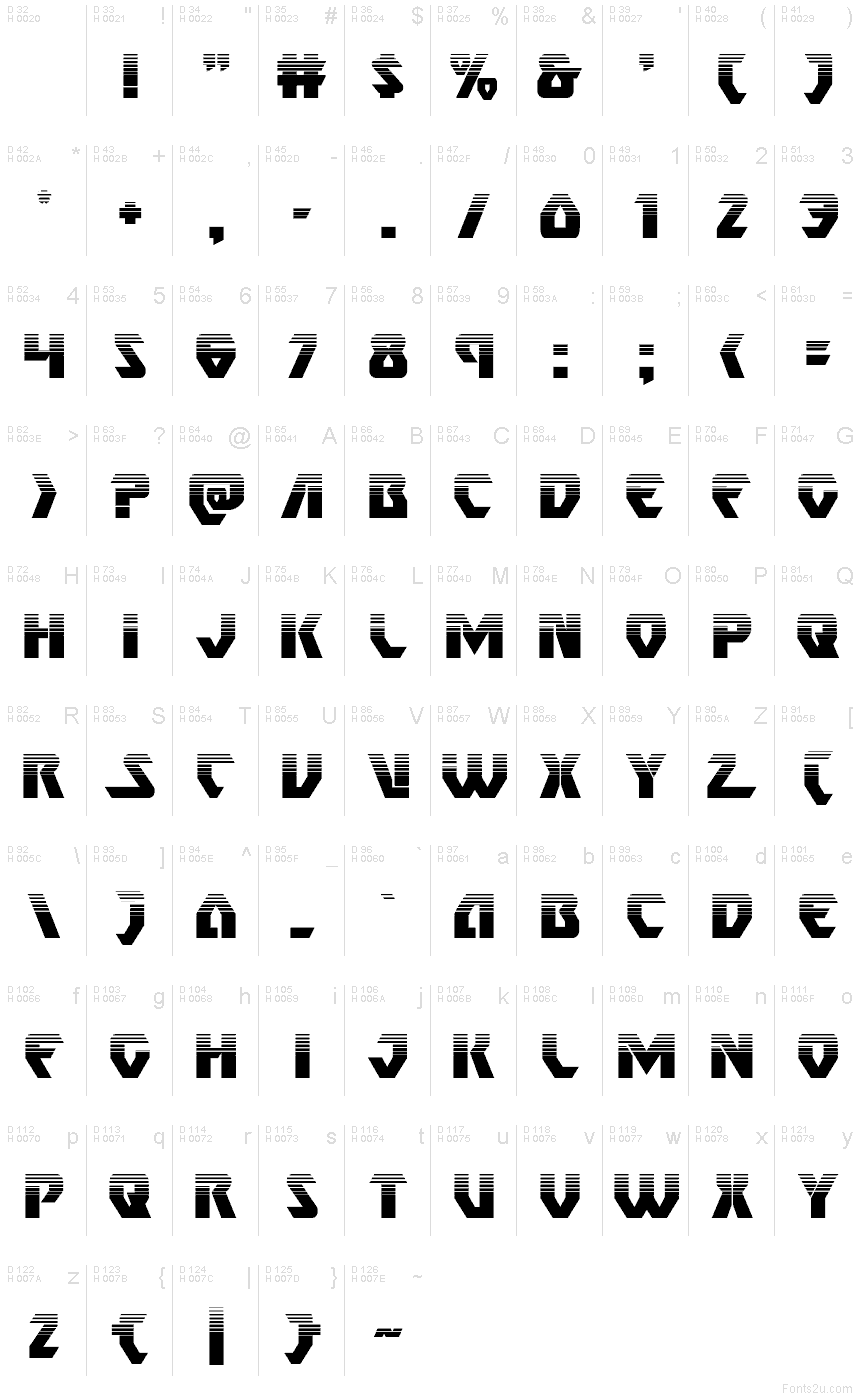
Ion Cannon Halftone
Ion Cannon Halftone font by Iconian Fonts is a futuristic display font that embraces modernism and geometric shapes. Features include contrasting heavy vertical and thin horizontal stripes that resemble halftones often used in ancient black-and-white newspapers. The high-tech typeface offers a structured appearance with its sharp edges, geometric aesthetics, and stripe elements.
Use Ion Cannon Halftone for free in modern posters, advertisements, website design, magazines, book covers, apparel designs, branding projects, and more. Posters and signage works will have all eyes on them as long as this engaging typeface has some accenting role in the concept.